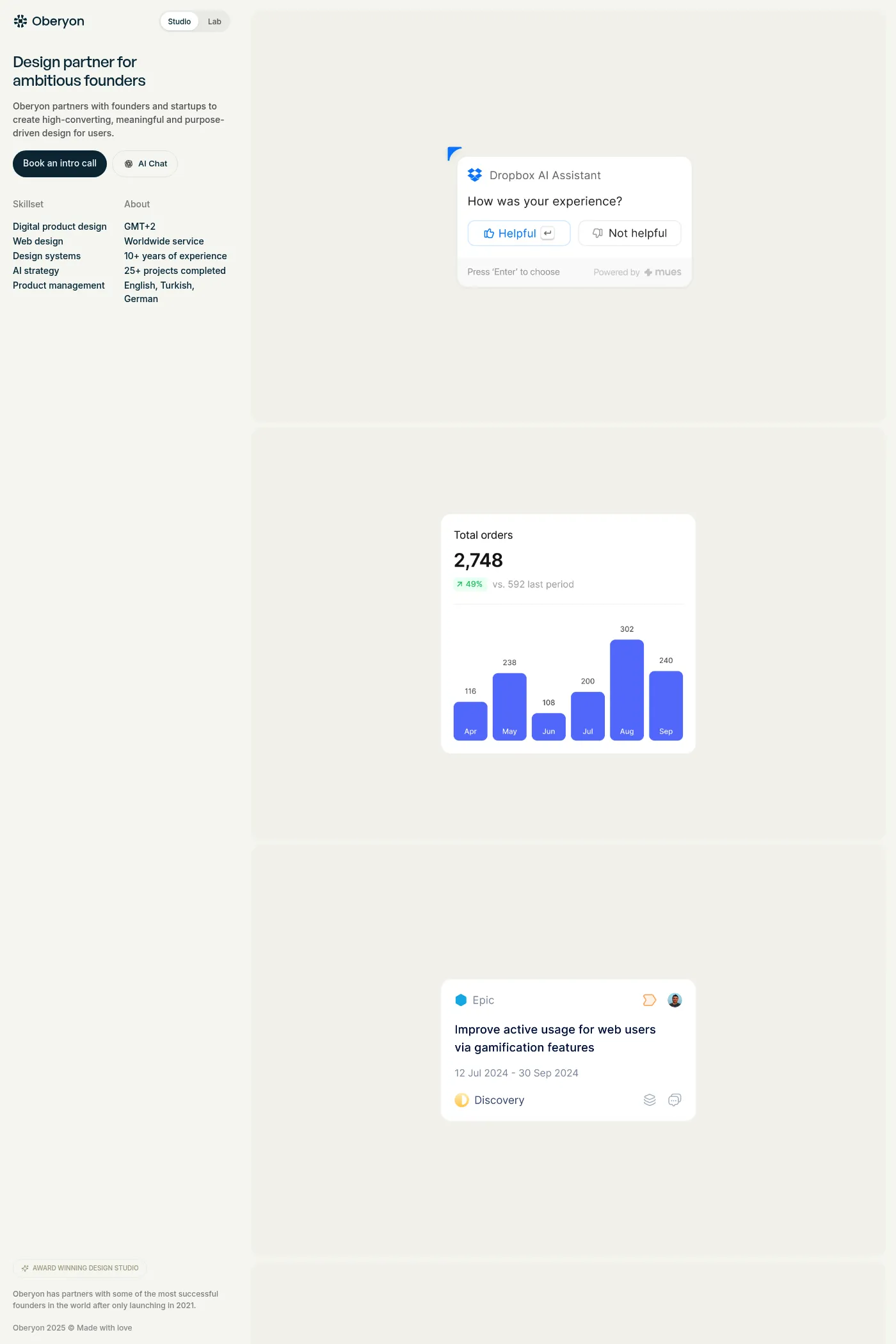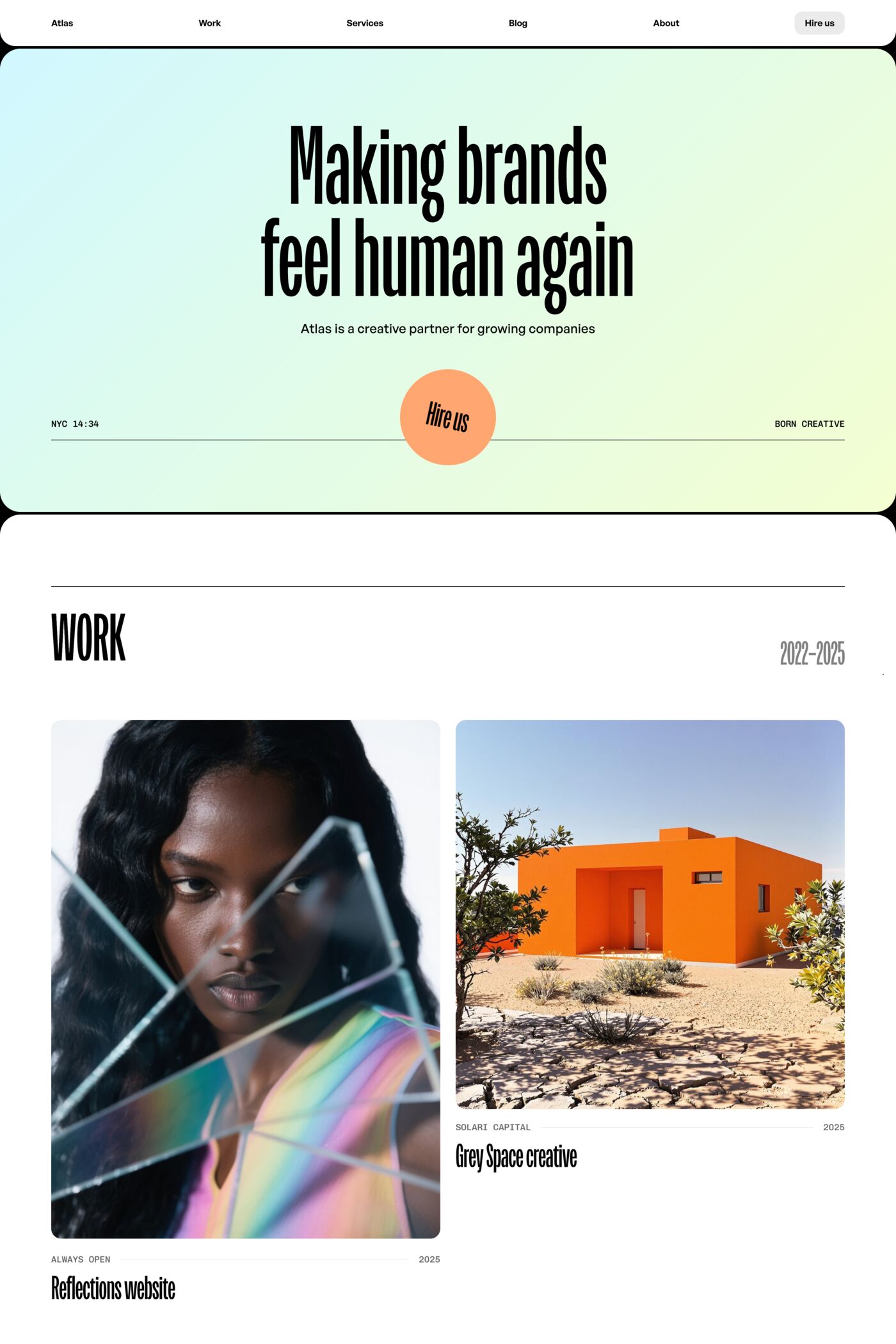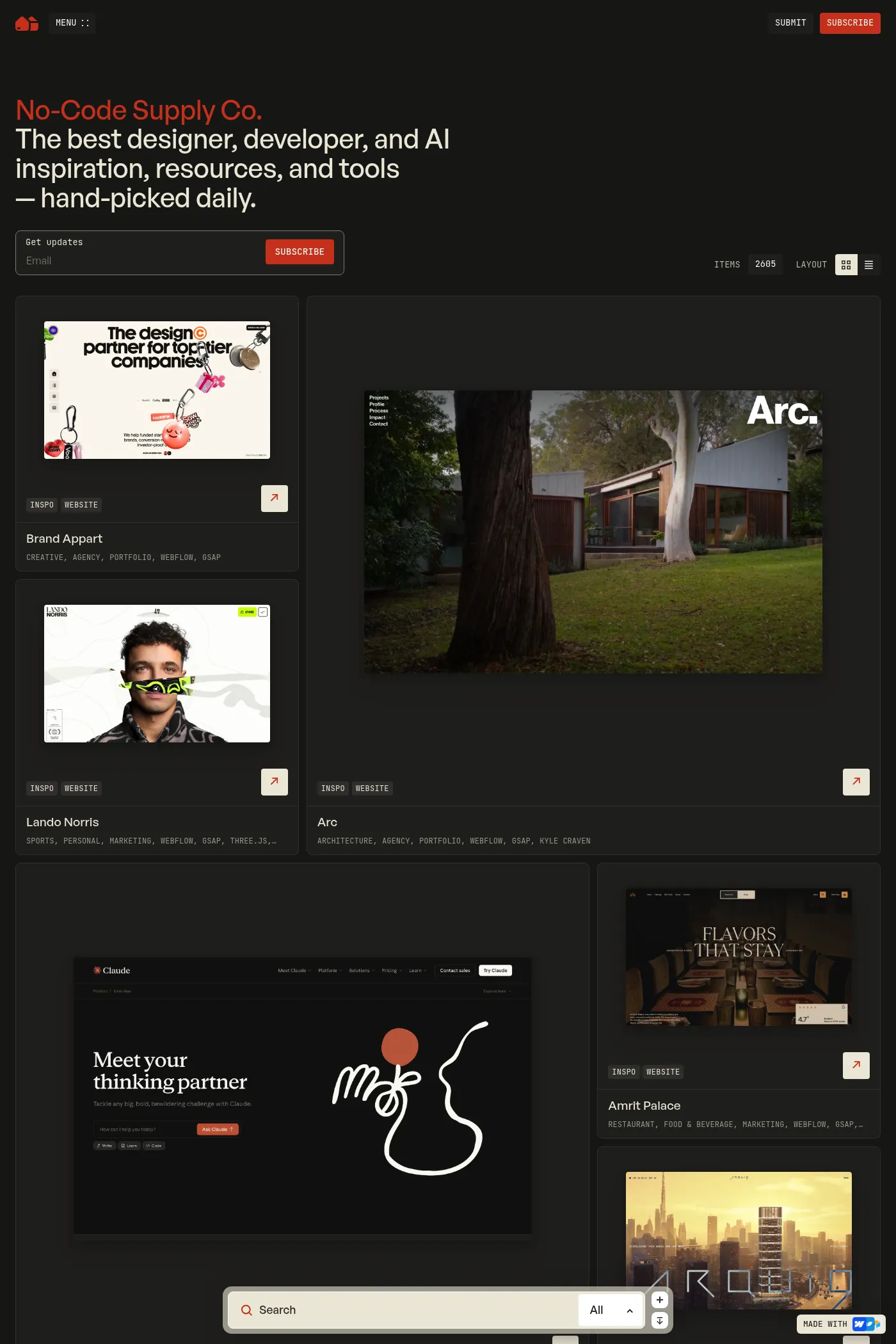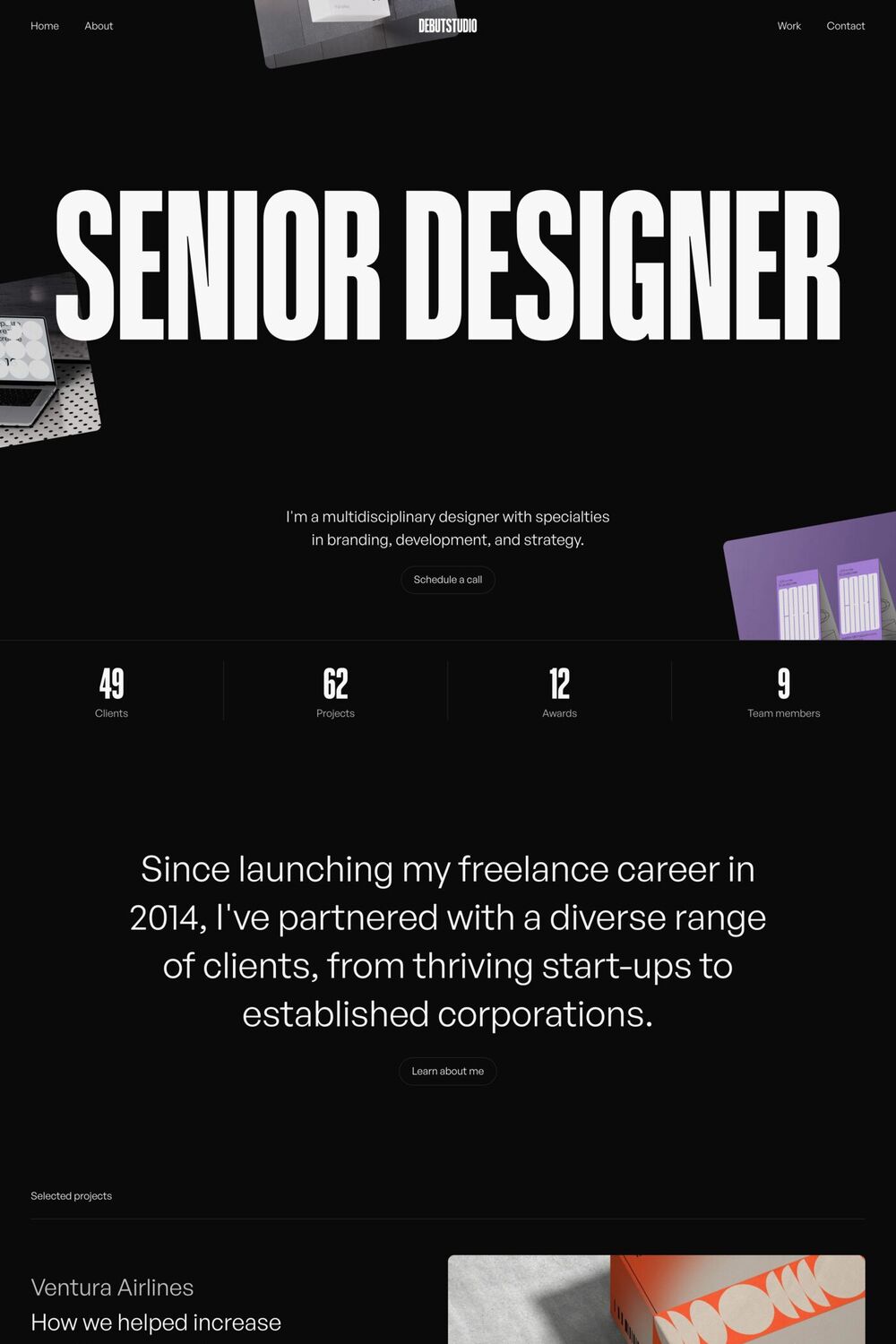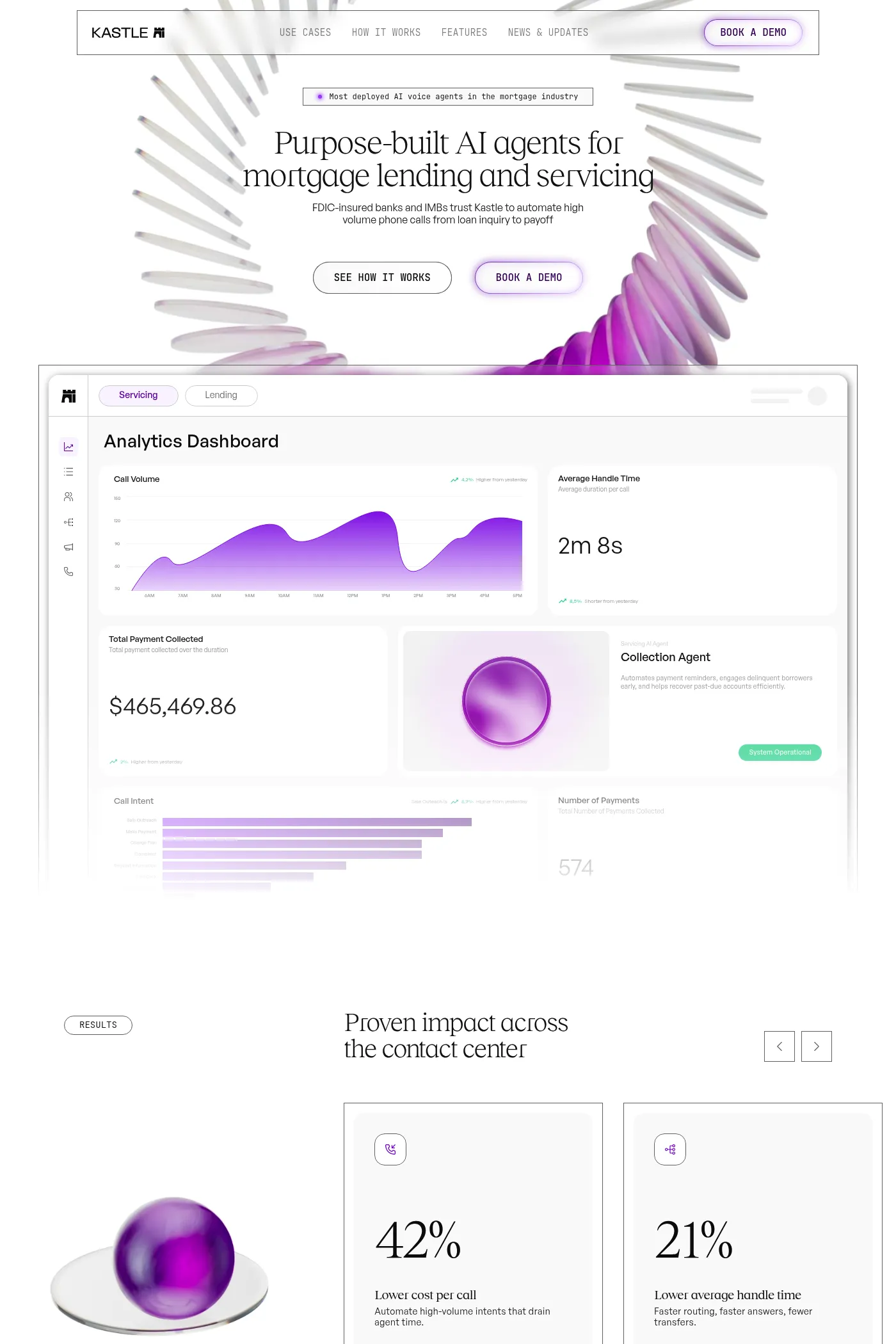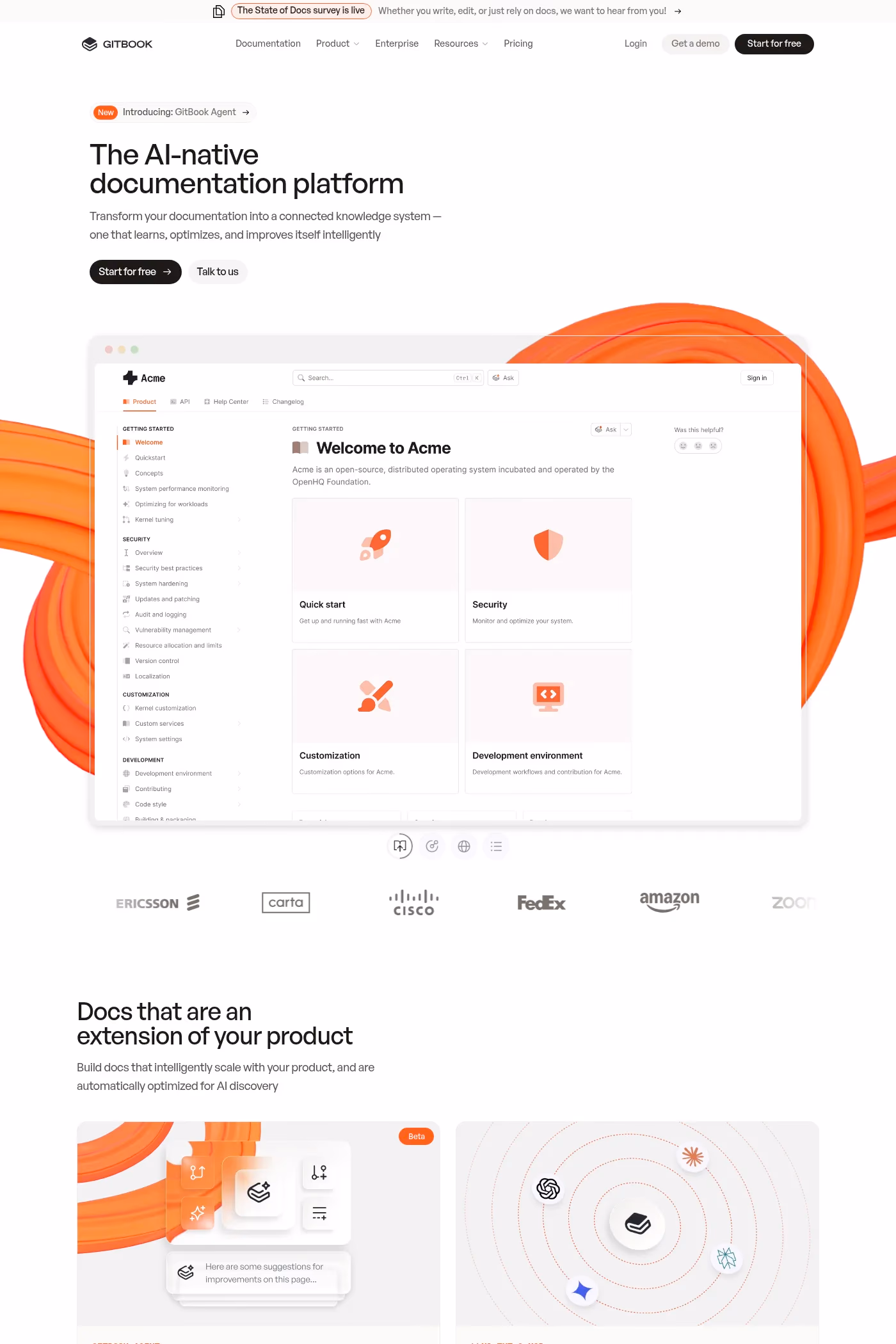
General Sans is a sans-serif typeface from Indian Type Foundry.
General Sans is a rationalist sans serif typeface. Its letterforms feel like the France of the 1950s; they are very orderly, but also a bit spritely. The letters’ apertures are very small, making the counter-forms in typeface feel like they are being completely enclosed within their surrounding characters. The General Sans family comes in twelve weights ranging from Extralight to Bold with complementary italics.